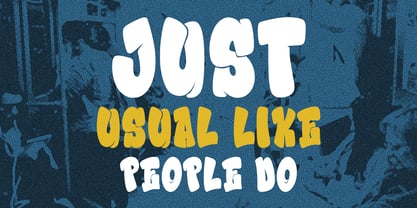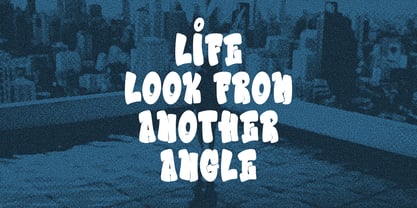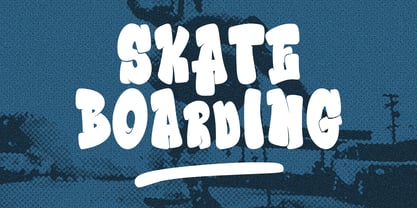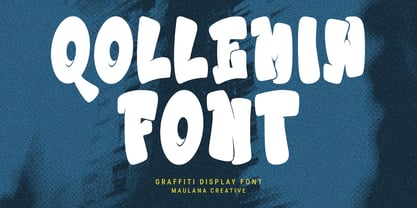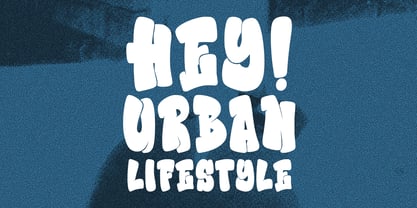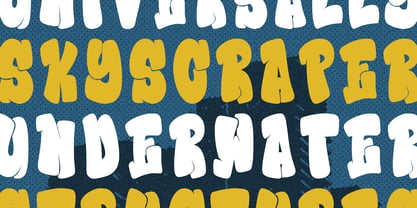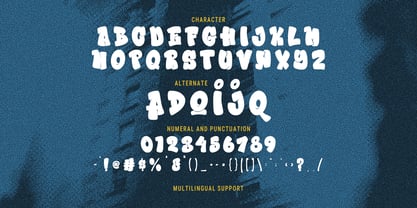
MC Qollemiw
by Maulana Creative
The MC Qollemiw Font Family was designed by Gilang Maulana and published by Maulana Creative. MC Qollemiw contains 1 styles. More about this family
Give your designs an authentic brush handcrafted feel. "Qollemiw Graffiti Display Font" is perfectly suited to signature, stationery, logo, typography quotes, magazine or book cover, website header, flyer, clothing, branding, packaging design and more.
Designers: Gilang Maulana
Foundry: Maulana Creative